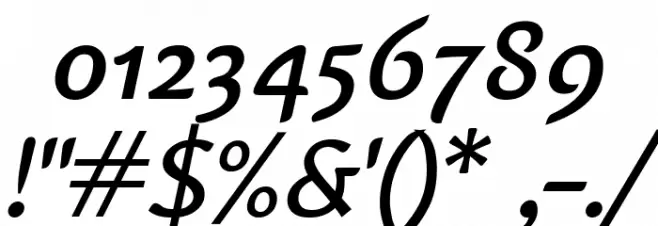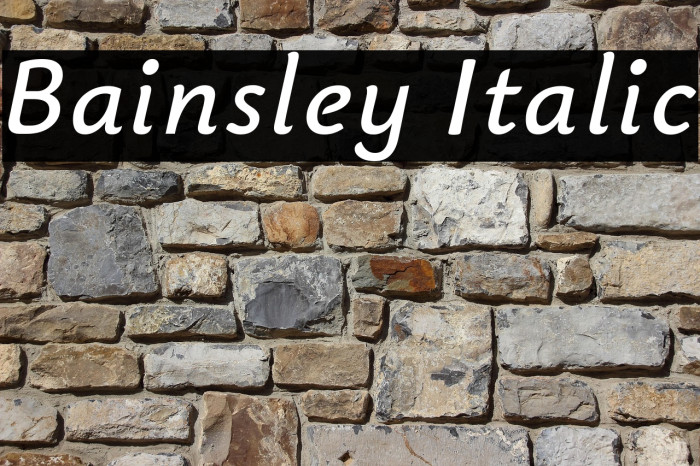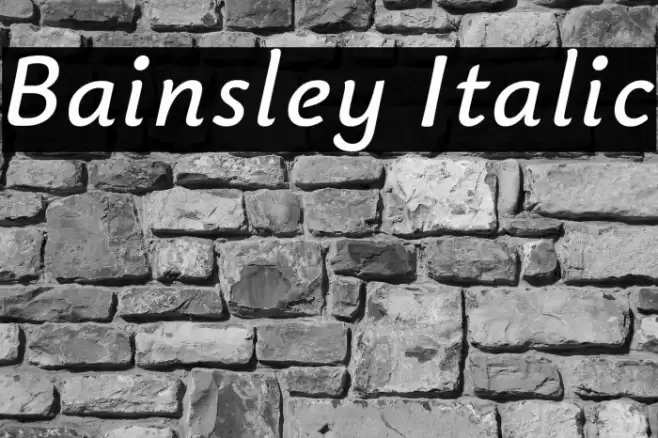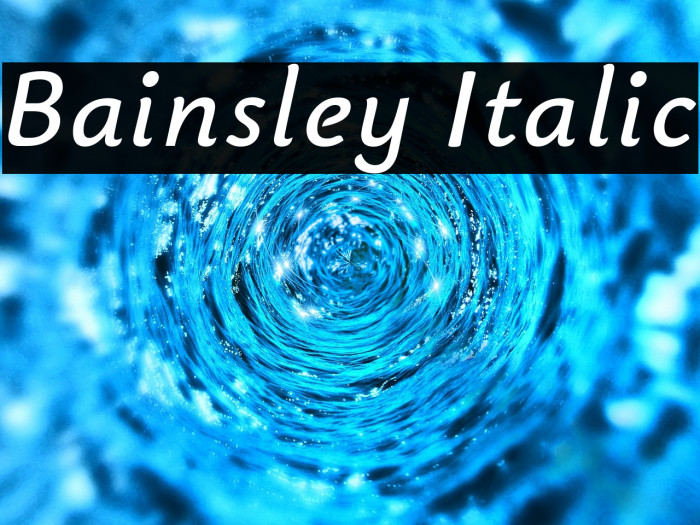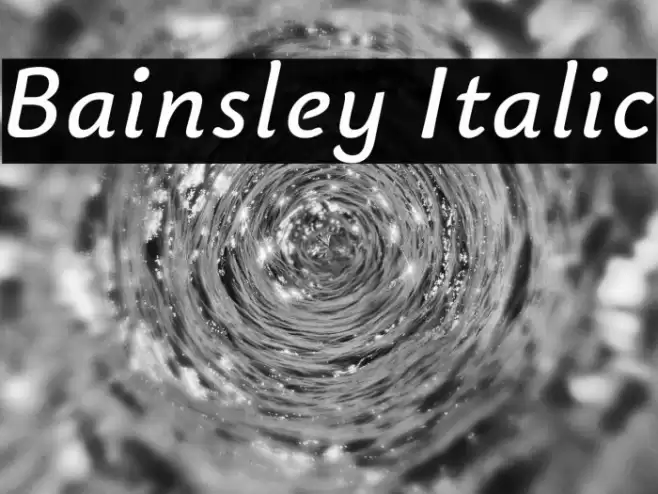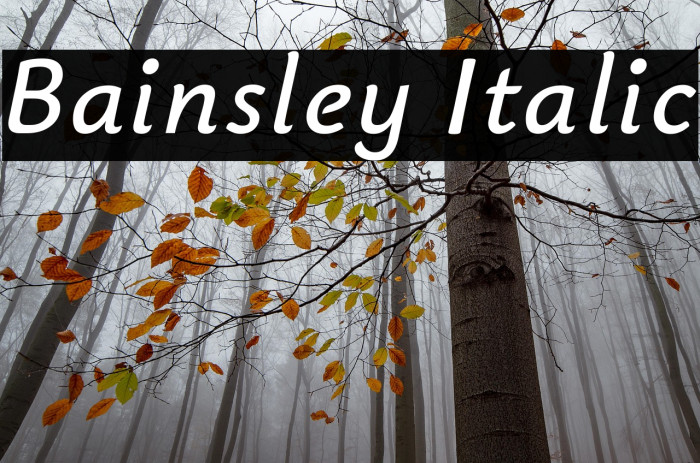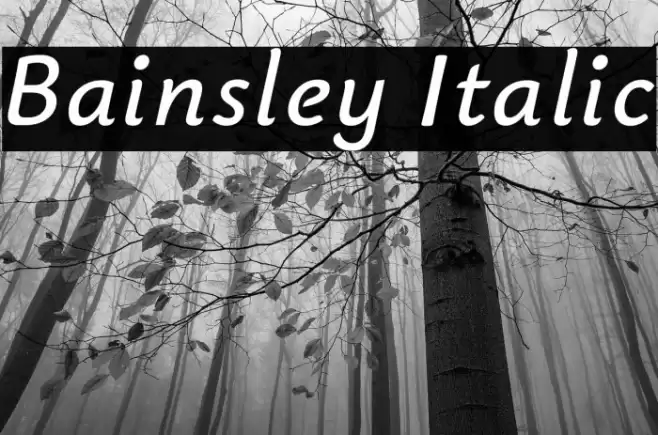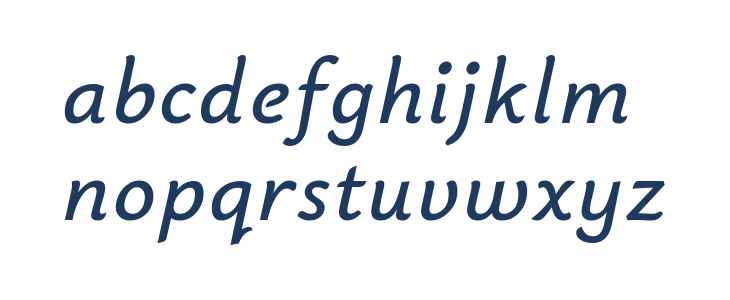
Bainsley Italic Font
Bainsley Italic Description
This font features a smooth, flowing italic style that adds a touch of elegance and sophistication to any text. The characters are slightly slanted, giving them a dynamic and lively appearance. The uppercase letters are bold and prominent, while the lowercase letters maintain a consistent flow with gentle curves. The numbers are clear and easy to read, matching the overall style of the font. Special characters are well-integrated, maintaining the same fluidity and elegance. This font is versatile, suitable for both formal and informal contexts, and can enhance the visual appeal of various design projects.
| Overall Style | Elegant, Dynamic |
| Proposed Projects | Ideal for wedding invitations, elegant branding, fashion magazines, and artistic posters. |